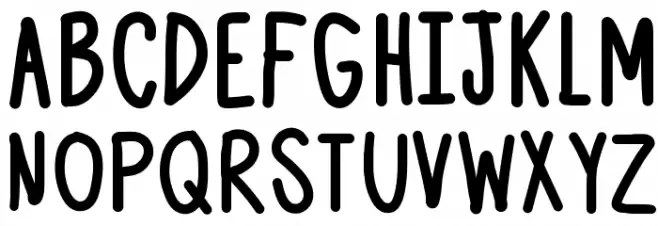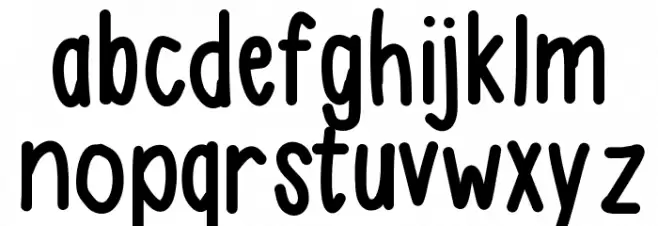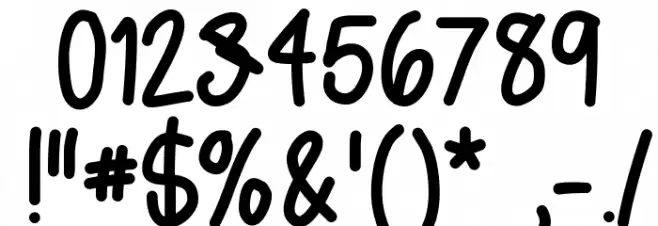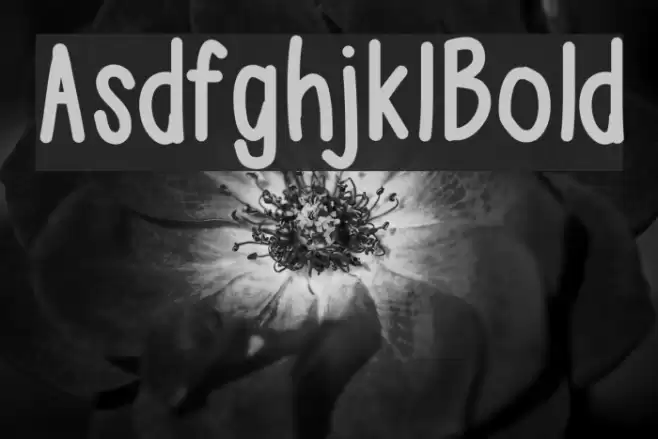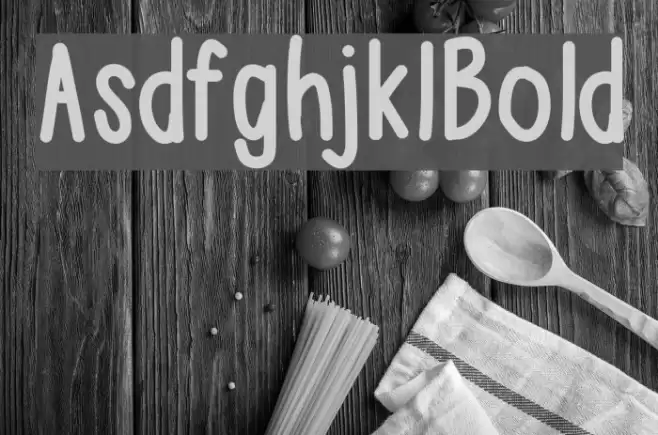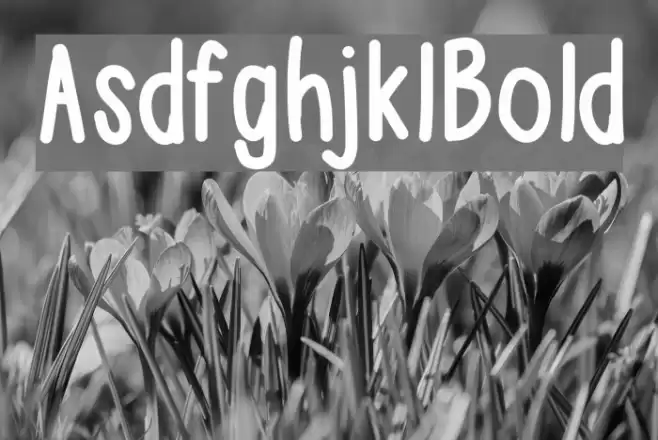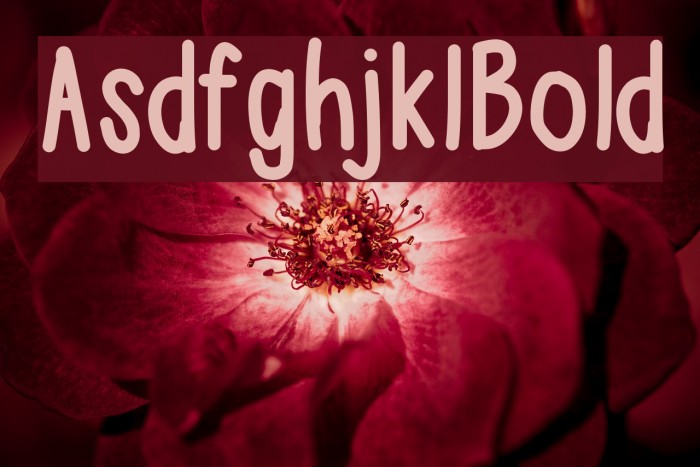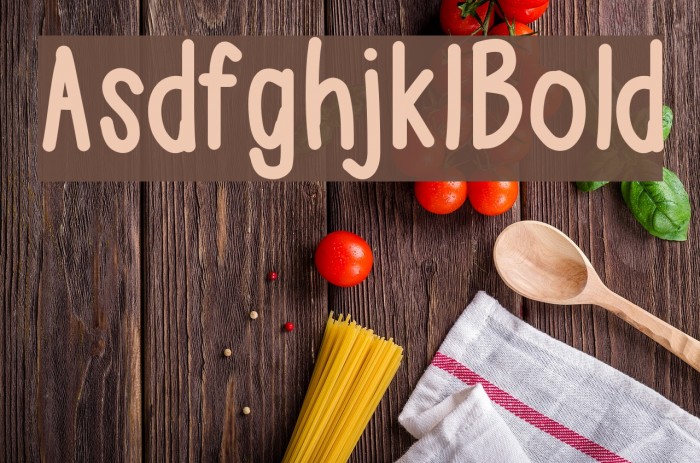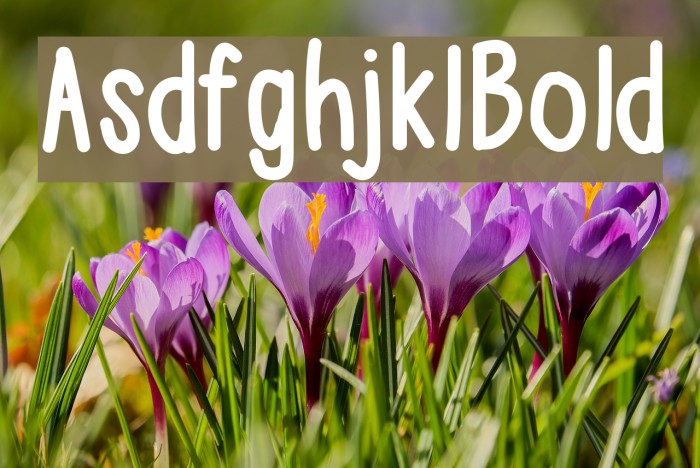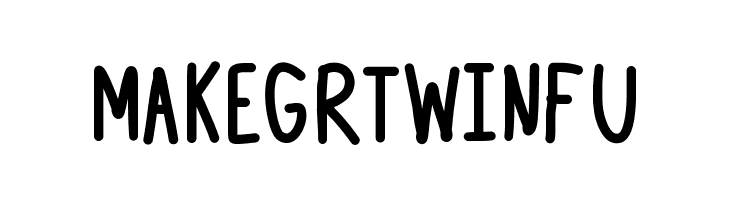
AsdfghjklBold
This font features a playful and informal handwritten style with bold, rounded strokes. The characters are slightly irregular, giving it a casual and friendly appearance. The uppercase and lowercase letters maintain a consistent height, while the numerals and special characters integrate seamlessly with the overall design. Its boldness makes it highly legible, even at smaller sizes, and the rounded edges contribute to a welcoming and approachable feel. The font's unique charm is suitable for projects that require a personal touch, such as invitations, greeting cards, or playful branding.
A bold, playful handwritten font with rounded strokes and a casual style.
- Proposed Projects: Ideal for invitations, greeting cards, playful branding, and children's books.
- Overall Style: Playful, Casual
- Use Case: Headlines, Logos, Informal Text